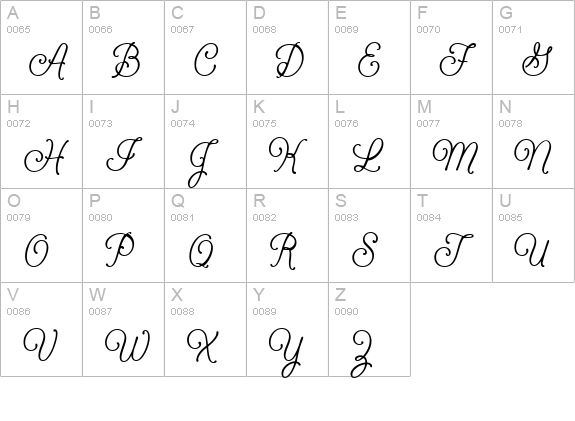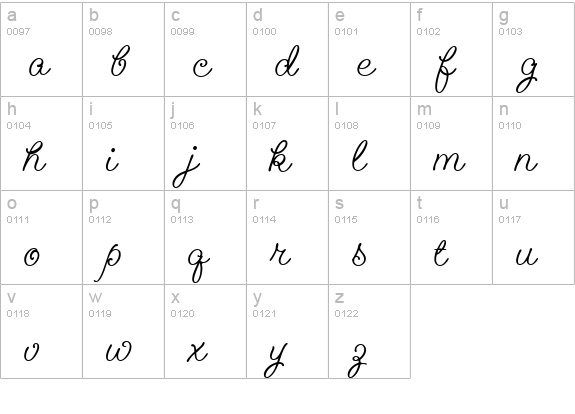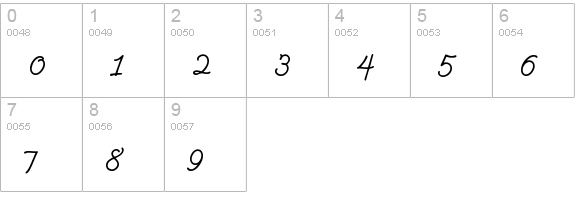
GeeohHmkBold Font Details
Introducing GeeohHmkBold font, a bold and eye-catching typeface that commands attention with its strong presence. This modern and versatile font is perfect for a wide range of design projects, from branding to editorial design. With its clean lines and distinctive style, GeeohHmkBold adds a touch of sophistication to any text. And the best part? GeeohHmkBold is available for free download at FontsMarket.com. You can easily add this striking font to your collection and start using it in your projects right away. Whether you're designing a poster, creating a logo, or working on a website, GeeohHmkBold is sure to make a bold statement. Download it now and elevate your designs with this stylish and impactful font.